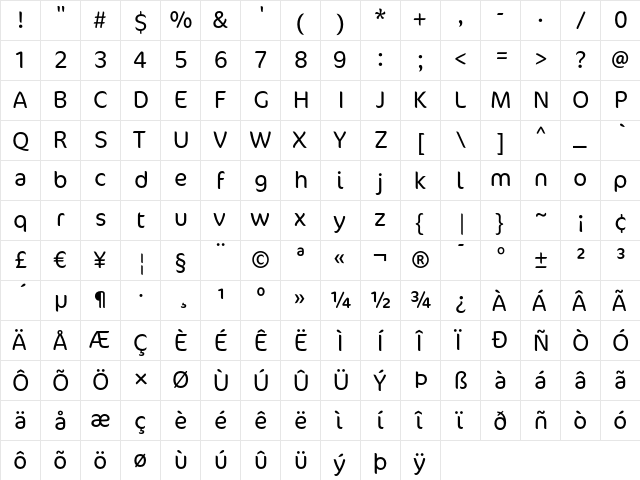
Cocon Light
Design Context for Cocon Typeface
Cocon is a composed and adaptable typeface that performs quietly and consistently across a wide range of design contexts. The delicate stroke weight brings airiness and refinement to layouts.
Pro Tip: Use Cocon in both headline and body roles to test its range before committing to a single application.